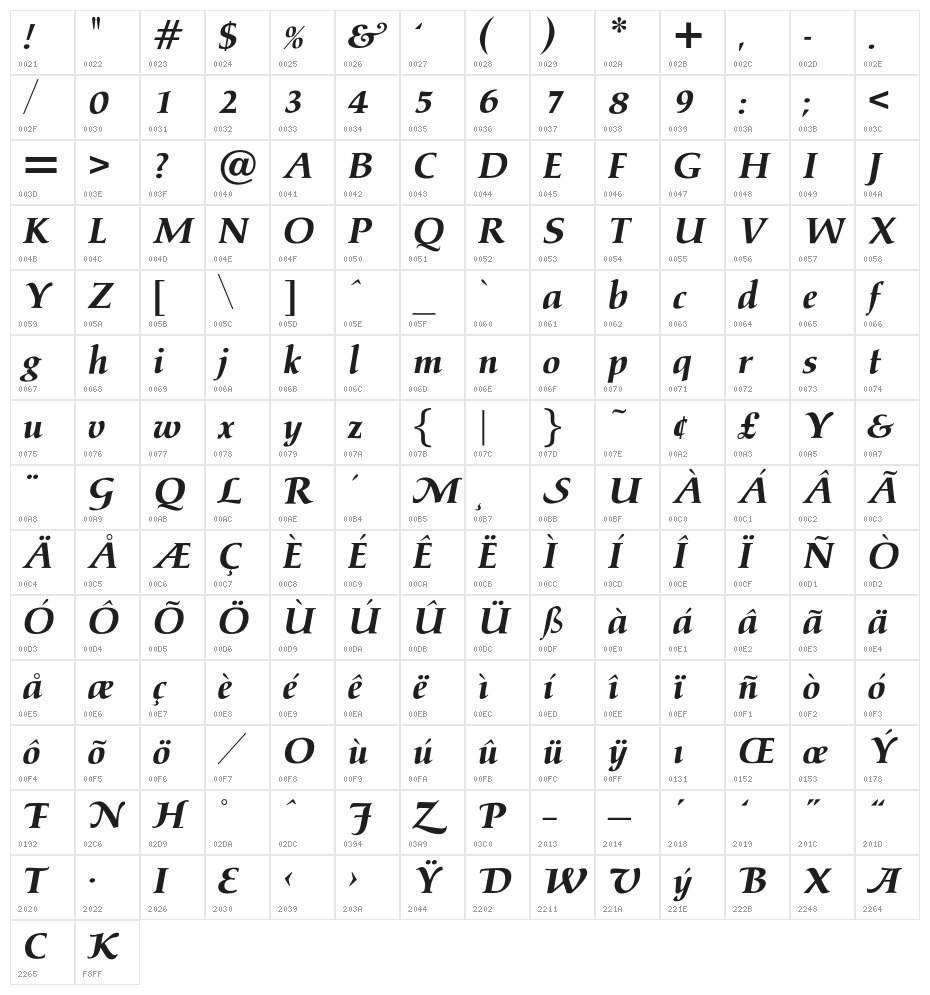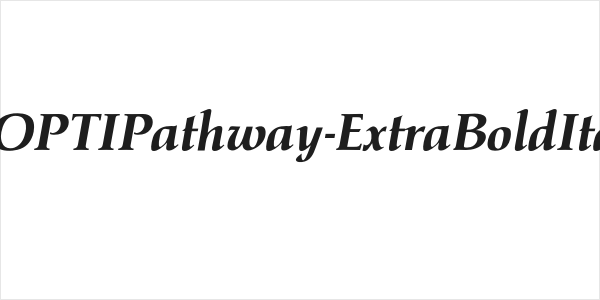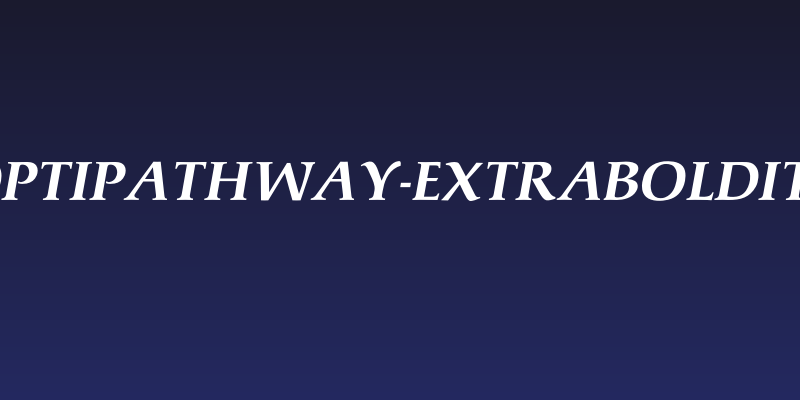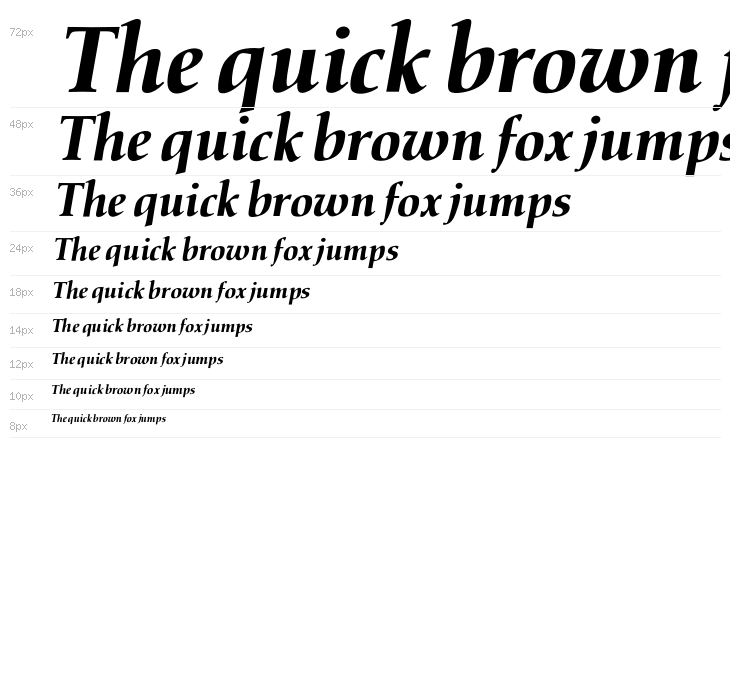
OPTIPathway-ExtraBoldIta Font
OPTIPathway-ExtraBoldIta Description
This font exhibits a bold and dynamic presence with its italicized characters, offering a sense of movement and elegance. The strokes are thick and pronounced, providing a strong visual impact. The serif elements add a touch of classic sophistication, while the italic slant gives it a modern twist. The numerals and special characters maintain the same boldness and style, ensuring consistency across all text elements. This font is well-suited for making statements, with its high contrast and distinctive style.
| Use Case | Headlines, Logos, Editorial design |
| Proposed Projects | Ideal for branding, headlines, and editorial design where a strong, elegant presence is needed. |